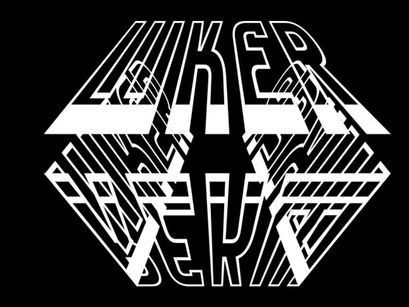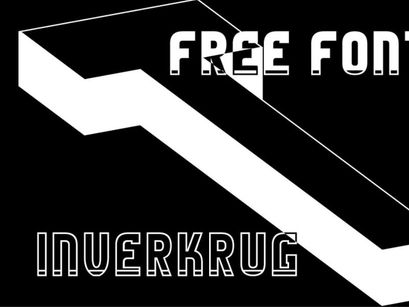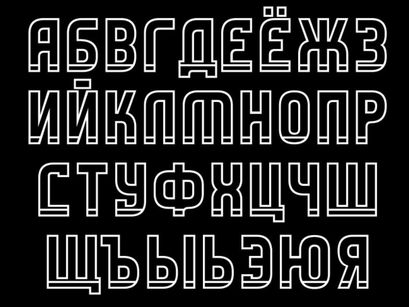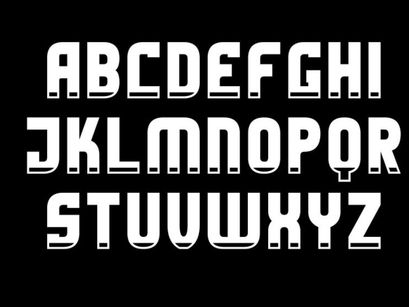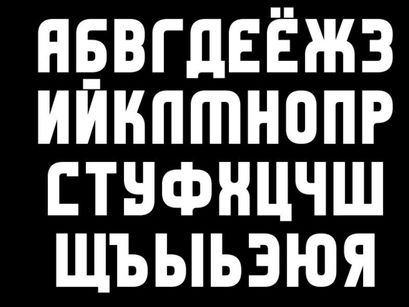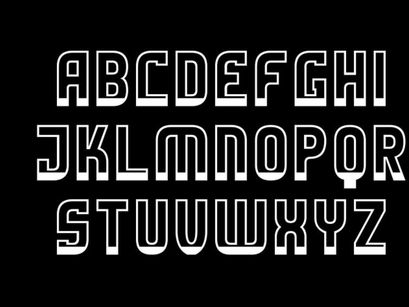
INVERKRUG - Free Font
Inverkrug
InverkrugOutline
Inverkrug is a free font by Raikov Maxim. Inspired by the right rounds and combinations. Everyone has a dark side, but it will always be opposed by a white one. This font is a sans serif with multilingual support including English and Russian.